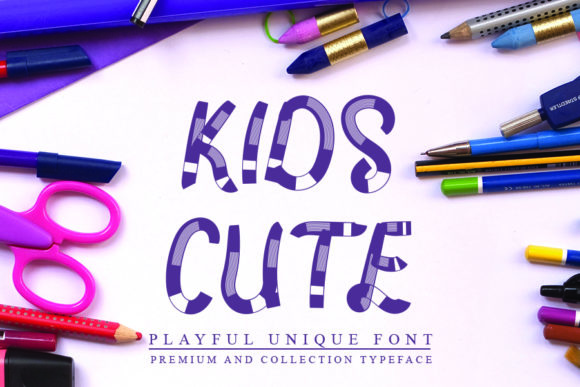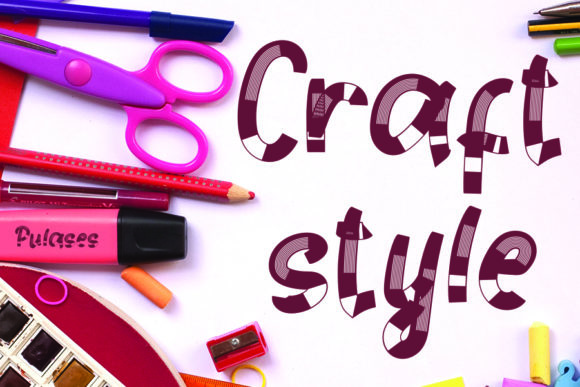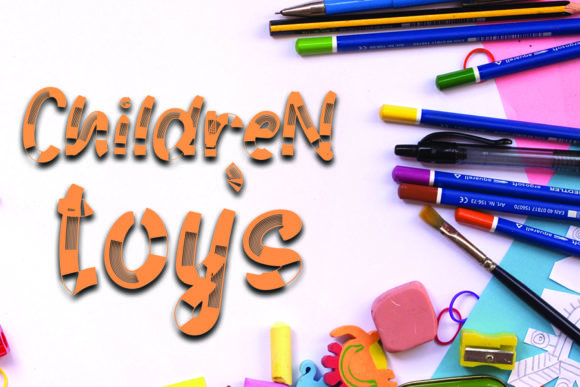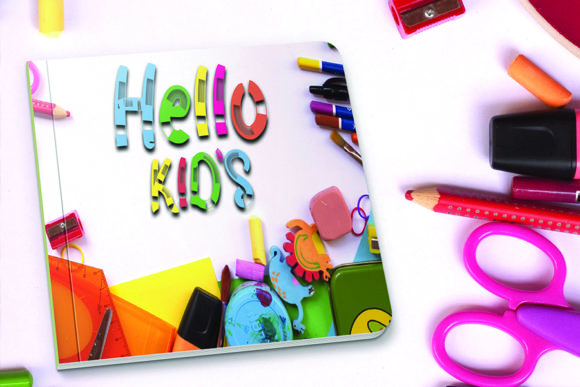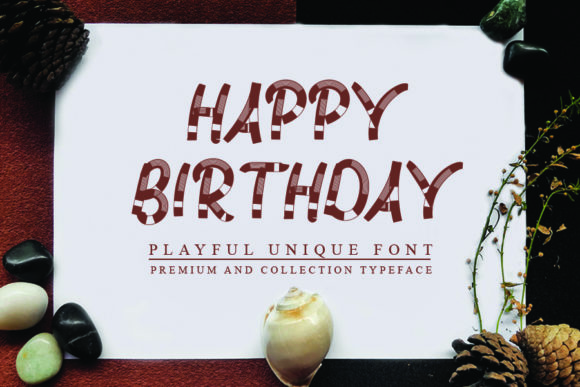
Introducing Happy Birthday Font: The Ultimate Addition to Your Design Collection
Are you tired of using the same old fonts for your designs? Do you want to add a touch of joy and whimsy to your creations? Look no further than Happy Birthday Font, a cute and quirky display font that’s sure to make your designs stand out!
What is Happy Birthday Font?
Happy Birthday Font is a unique and playful display font that’s perfect for adding a joyful touch to your designs. With its fun and quirky style, this font is sure to capture the attention of your audience and leave a lasting impression. Whether you’re a designer, crafter, or DIY enthusiast, Happy Birthday Font is a must-have addition to your font collection.
Key Features of Happy Birthday Font
- Cute and Quirky Style: Happy Birthday Font features a playful and whimsical design that’s sure to add a touch of joy to your designs.
- Display Font: This font is specifically designed as a display font, making it perfect for headlines, titles, and other prominent text elements.
- Versatile: This font can be used for a wide range of design projects, from party invitations and decorations to social media graphics and more.
Why Use Happy Birthday Font?
So why choose Happy Birthday Font for your design projects? Here are just a few reasons why this font is a great addition to your collection:
- Adds a Touch of Joy: Happy Birthday Font is designed to add a playful and joyful touch to your designs, making it perfect for projects that require a lighthearted and whimsical feel.
- Stand Out from the Crowd: With its unique and quirky style, Happy Birthday Font is sure to make your designs stand out from the crowd and capture the attention of your audience.
- Perfect for Party Designs: This font is specifically designed with party designs in mind, making it perfect for birthday invitations, decorations, and other celebratory materials.
How to Use Happy Birthday Font
Using Happy Birthday Font is easy! Here are a few tips for incorporating this font into your design projects:
- Pair with Other Fonts: Happy Birthday Font pairs well with a variety of other fonts, making it easy to create visually appealing and cohesive designs.
- Use for Headlines and Titles: This font is specifically designed as a display font, making it perfect for headlines, titles, and other prominent text elements.
- Experiment with Colors and Textures: Happy Birthday Font looks great in a variety of colors and textures, so don’t be afraid to experiment and find the perfect combination for your design.
Design Ideas Using Happy Birthday Font
Here are a few design ideas to get you started with Happy Birthday Font:
- Birthday Invitations: Use Happy Birthday Font to create custom birthday invitations that are sure to impress.
- Party Decorations: This font is perfect for creating custom party decorations, such as banners, garlands, and more.
- Social Media Graphics: Happy Birthday Font is a great addition to social media graphics, such as birthday posts and celebrations.
In conclusion, Happy Birthday Font is a cute and quirky display font that’s sure to add a joyful touch to your designs. With its unique and playful style, this font is perfect for designers, crafters, and DIY enthusiasts who want to create visually appealing and cohesive designs. So why wait? Add Happy Birthday Font to your collection today and start creating designs that are sure to stand out!